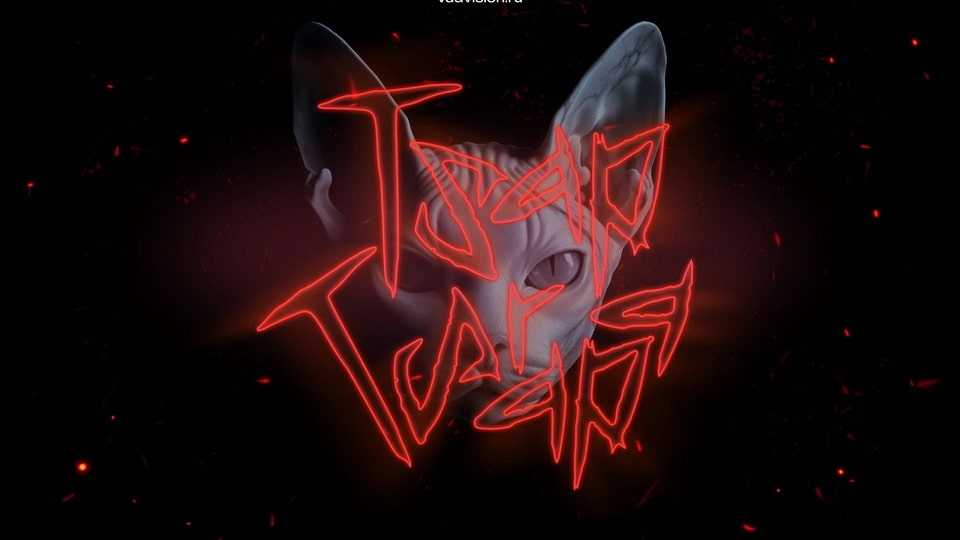
Download Tsap Tsarap font, a wild and chaotic display typeface with raw, jagged strokes and a rebellious spirit, inspired by scratchy graffiti and occult horror aesthetics.
Designer: Anastasia Vinokurova